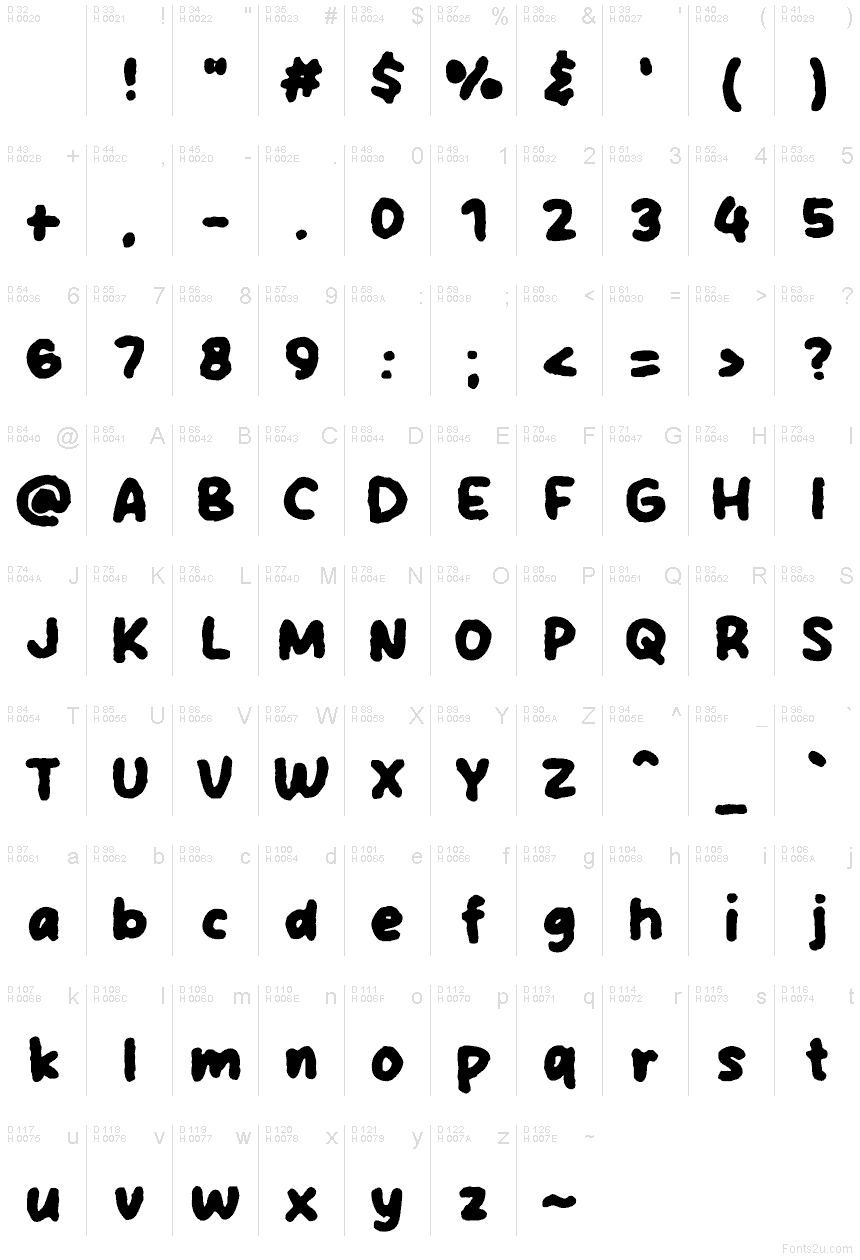
Memo Sket
Memo Sket font by Origin Type is a free handwritten font with organic forms and brush style. Its casual appearance, expressive character, and youthful vibe provide it with a personal touch every design has to enjoy, especially since it is published in two different font styles.
Due to the variety this bold handwritten free font offers, it can be used for book covers, branding designs, advertisements, digital posters for social platforms like Facebook or Instagram, podcasts cover images or videos.